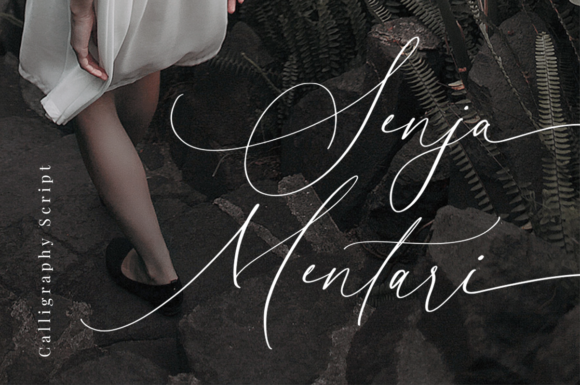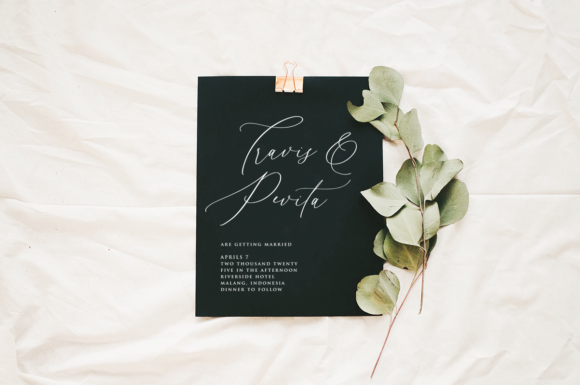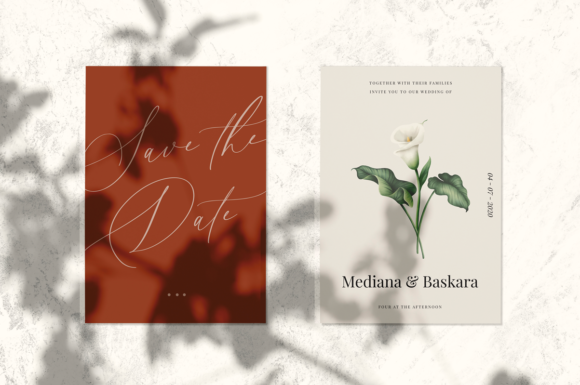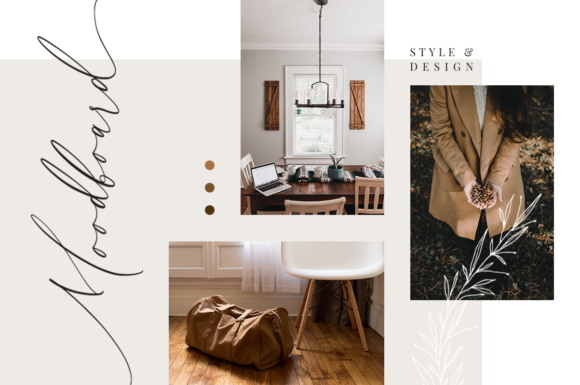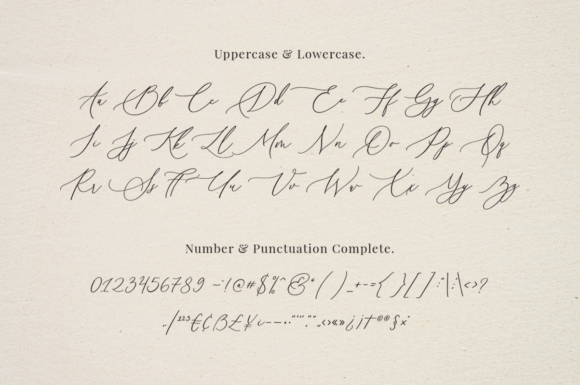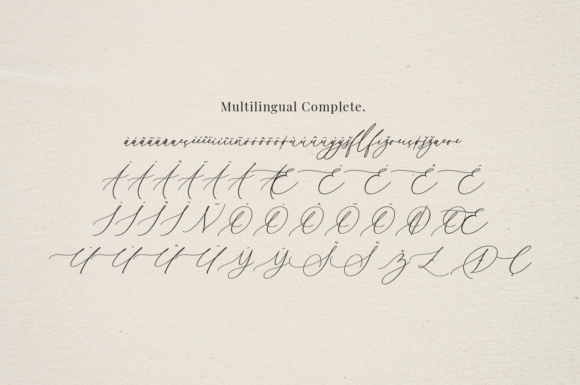
Senja Mentari Font
About Senja Mentari Font
Senja Mentari is inspired by classic typography and brings its own unique style to any design project. This elegant font will elevate a wide range of design projects to the highest level, be it branding, headings, wedding designs, invitations, signatures, logos, labels, and much more!